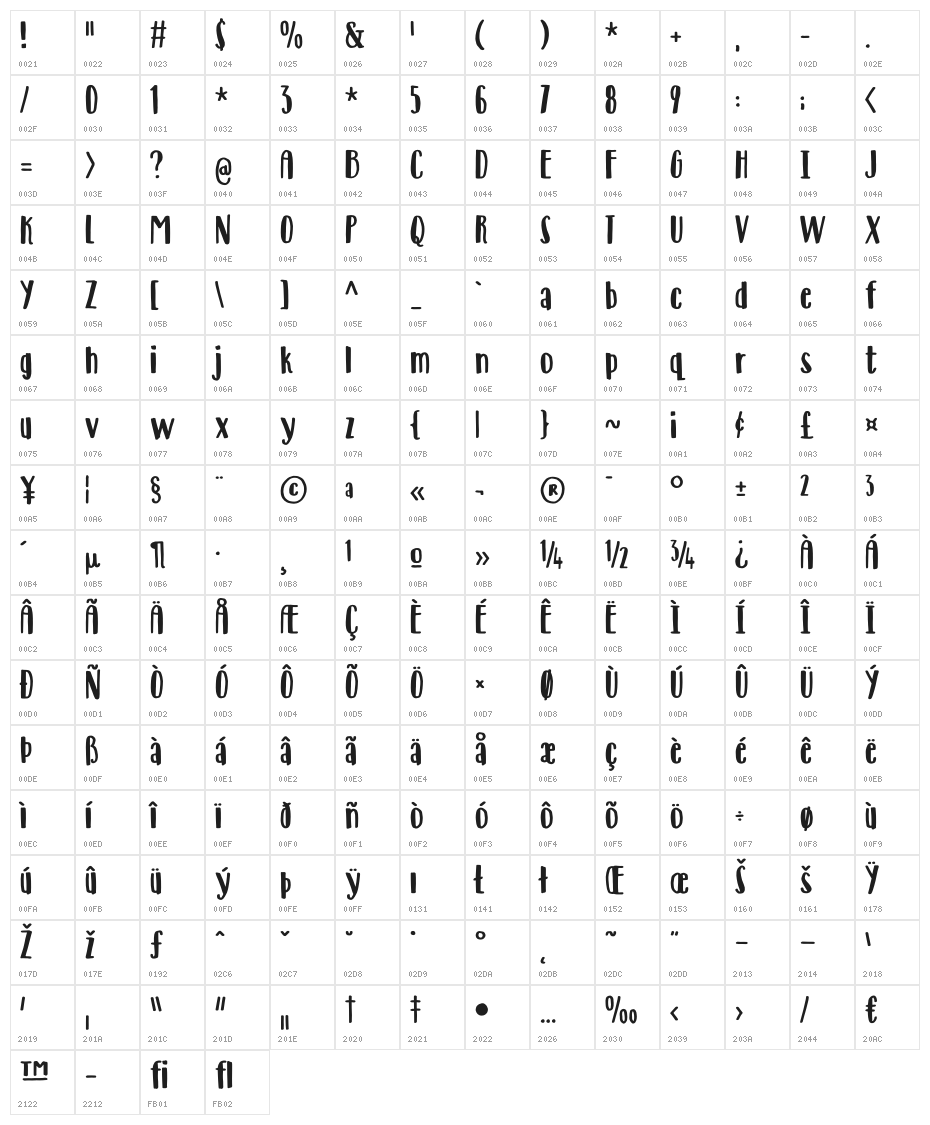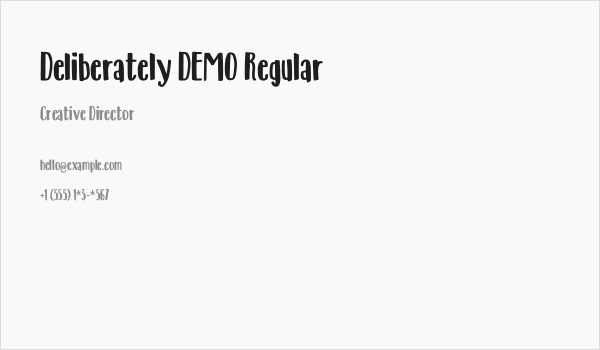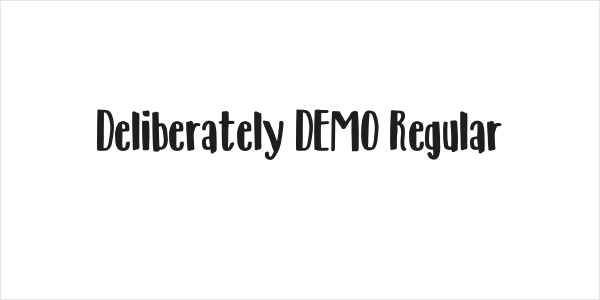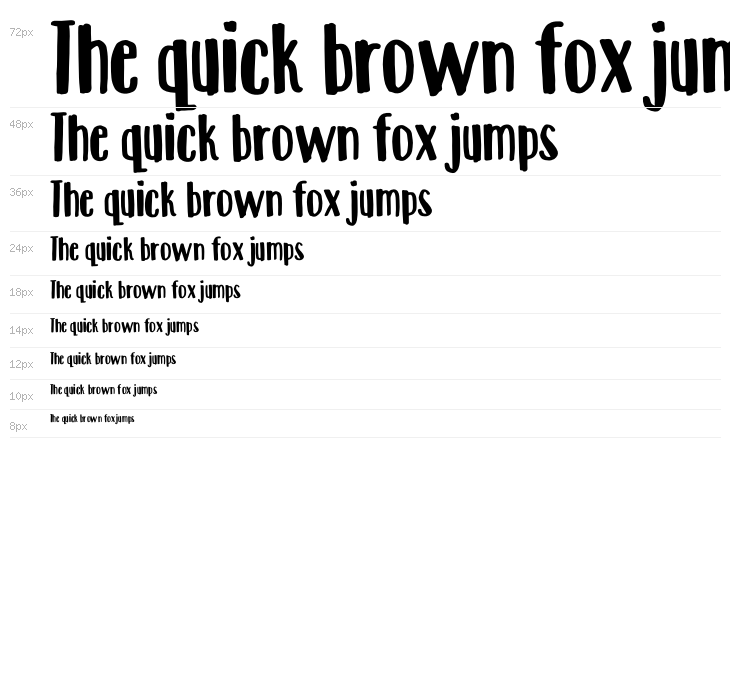
Deliberately DEMO Regular Font
Deliberately DEMO Regular Description
This font features a bold and playful design with a hand-drawn aesthetic. The characters are slightly irregular, giving it a whimsical and casual feel. The strokes are thick and consistent, providing a strong visual impact. The uppercase letters are tall and narrow, while the lowercase letters maintain a similar style with a slightly more relaxed form. The numerals and special characters follow the same playful and bold style, making the font suitable for creative and informal projects.
| Overall Style | Playful, Hand-drawn |
| Proposed Projects | Ideal for children's books, playful branding, posters, and creative invitations. |